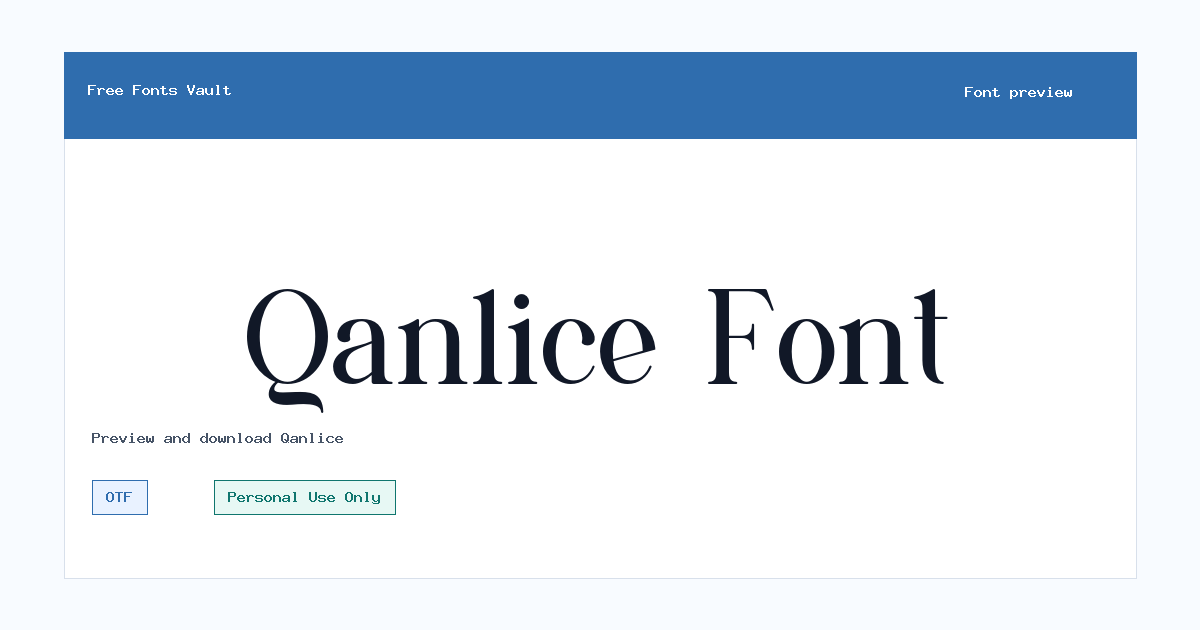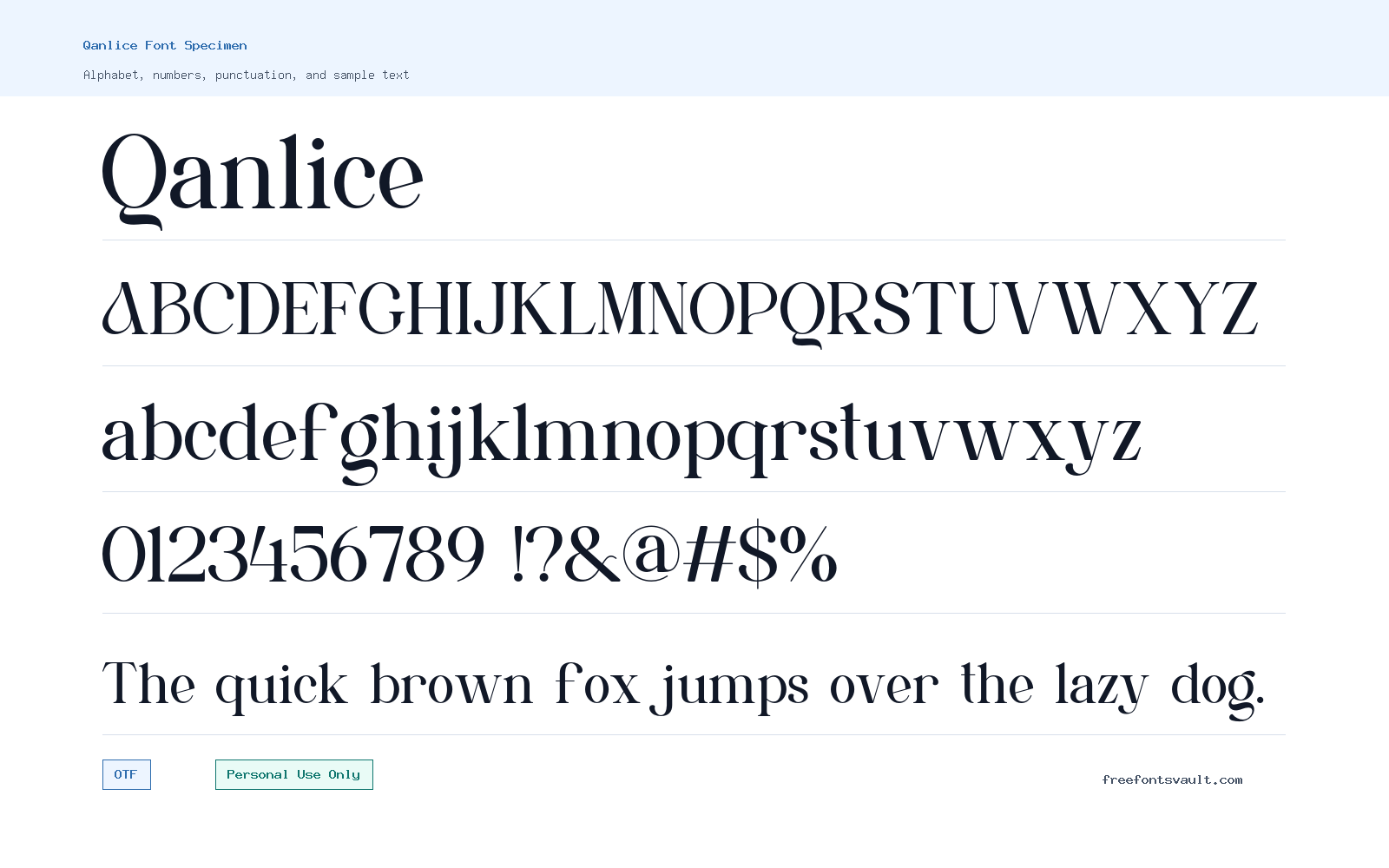
Qanlice
Qanlice is a personal-use serif font from ErmediaStudio, offered in a regular OTF style. It is a good font to test when you need a display serif for short text, branding drafts, poster titles, invitations, or visual mockups where the lettering needs more character than a plain text face.
About Qanlice Font
Qanlice works best as a display choice rather than a long-reading text font. Since the available file is a regular-weight OTF font, it is most useful for headlines, names, short quotes, logo concepts, packaging mockups, cover designs, and social graphics. Serif fonts often bring a more editorial or decorative feel to a layout, but the safest way to judge Qanlice is to type your own words in the preview and check how the letters behave together. Pay attention to capital letters, repeated letters, spacing, punctuation, and numbers if your project needs them.
For logo work, Qanlice can be useful during the concept stage, especially for personal branding experiments, mood boards, portfolio pieces, and non-commercial design drafts. Try it at larger sizes first, because display serif fonts usually show their shape better in titles than in dense paragraphs. If you are creating a poster, book-style graphic, wedding layout, boutique mockup, or website hero section, test the font with only a few words and leave enough breathing room around it. Avoid forcing it into small body copy until you have checked readability on both desktop and mobile previews.
- Personal-use serif font choice for short display text, titles, branding drafts, and decorative layouts.
- Single regular style with normal weight, making it simple to test without managing a large family.
- Works best when previewed with real project text, especially names, headlines, initials, and short phrases.
- Useful for design exploration where a serif voice is needed without relying on a standard system font.
- Logo concepts and personal branding drafts
- Invitation headings and stationery mockups
- Website hero text and landing page mockups
- Editorial-style social media graphics
- Packaging concepts for non-commercial presentations
- Portfolio experiments and typography studies
- Short quotes, names, and decorative headings
Is Qanlice good for logos?
What should I pair Qanlice with?
Pair it with a simple sans serif for body text, navigation, captions, and longer descriptions. A clean supporting font will keep the layout readable while Qanlice handles the main display text.
Is Qanlice suitable for long paragraphs?
It is better to use Qanlice for short text first. For long paragraphs, test spacing, size, and screen readability before committing to it.